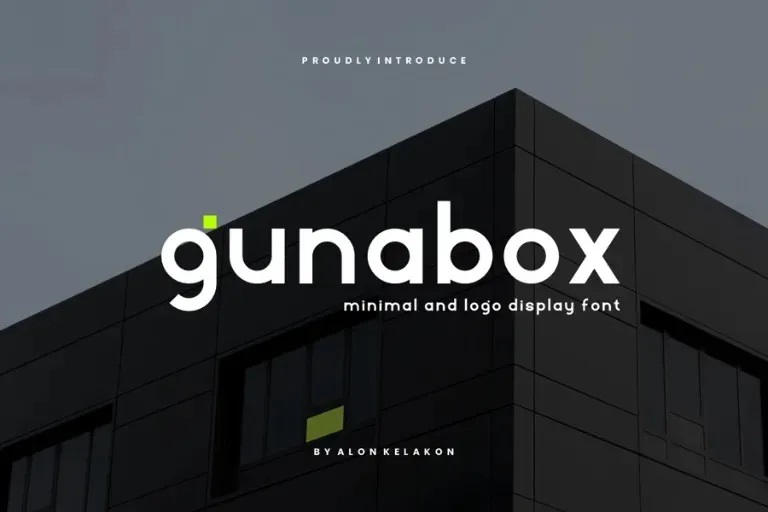
Gunabox Font
Gunabox is a Minimal and Logo Font category. Ideal for your design such as labeling, movies scene, poster, movie title, gigs, album covers, logos, and so many more. The free version offers access to all letters both in upper and lower case, plus a few symbols too.
Gunabox Sans Serif Font